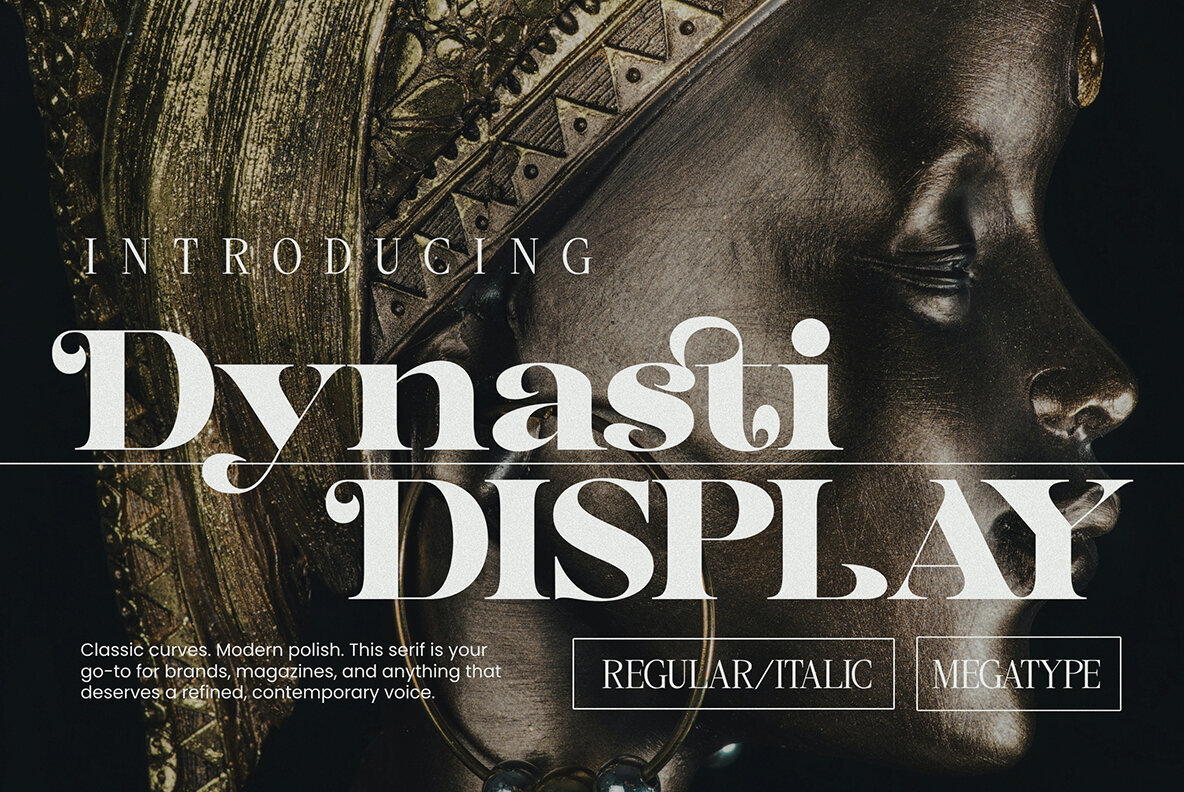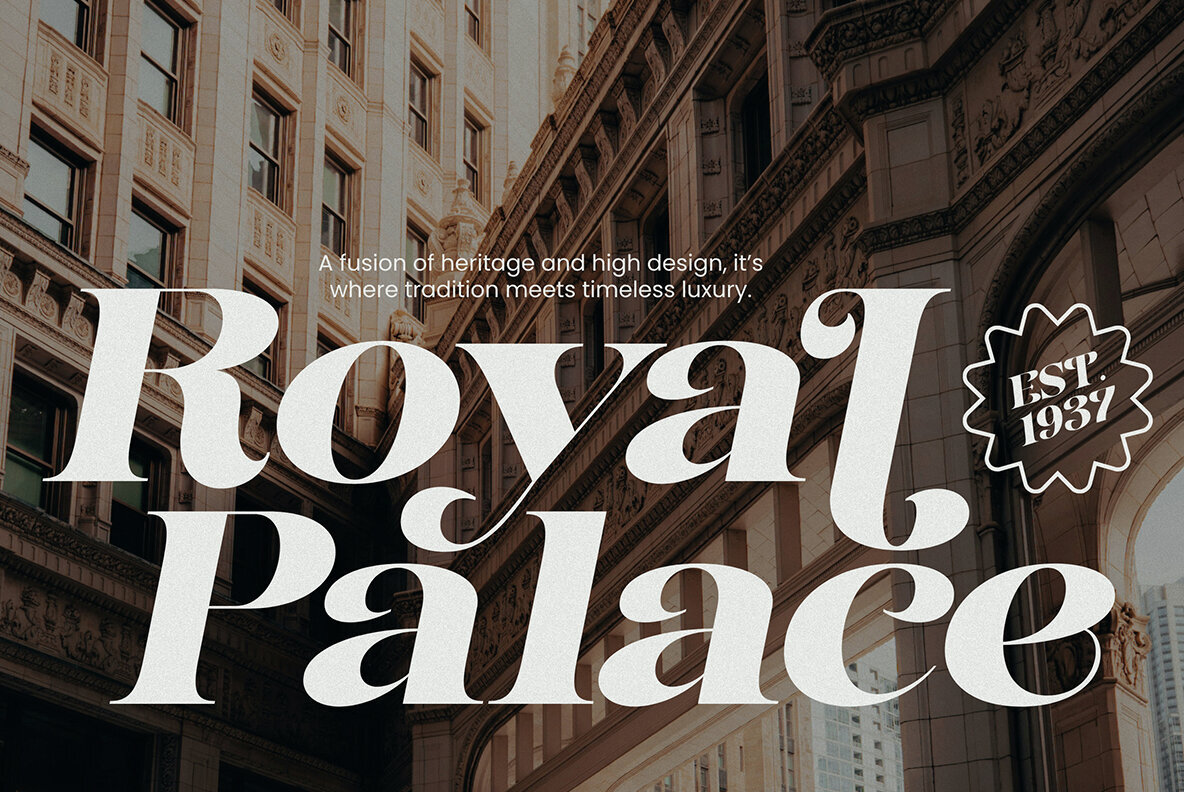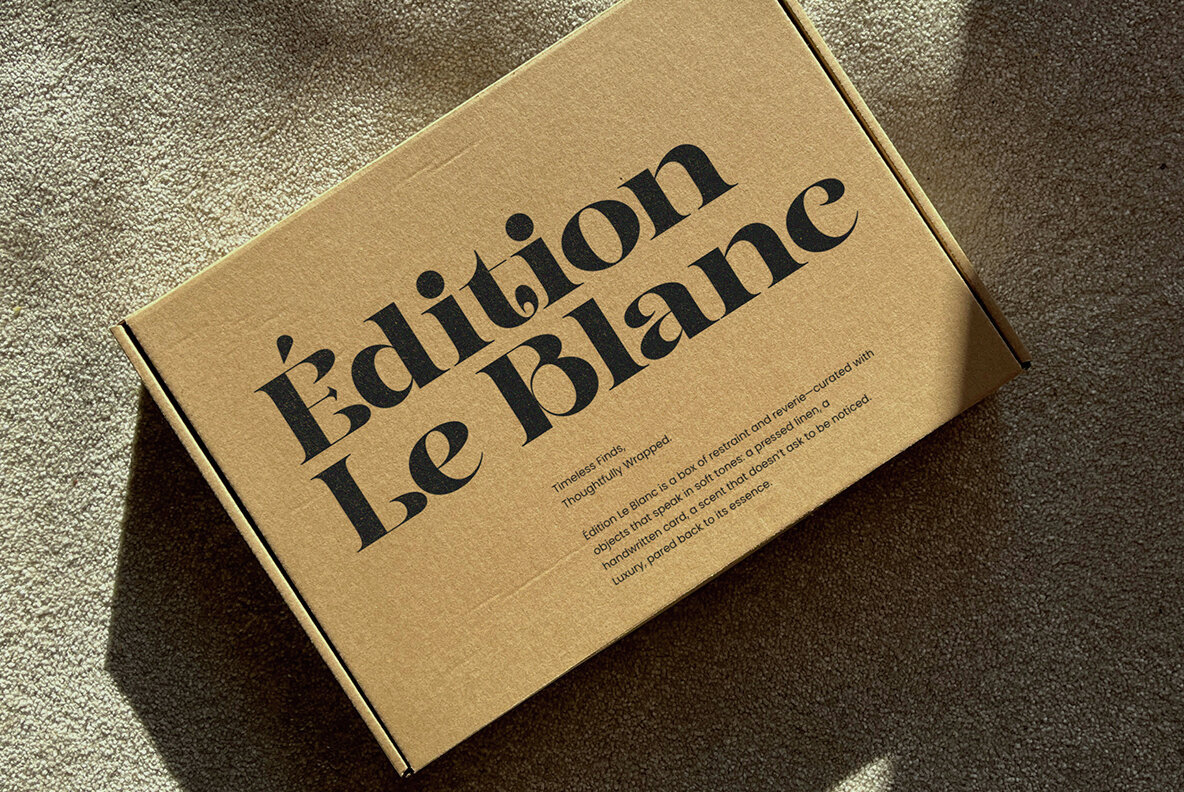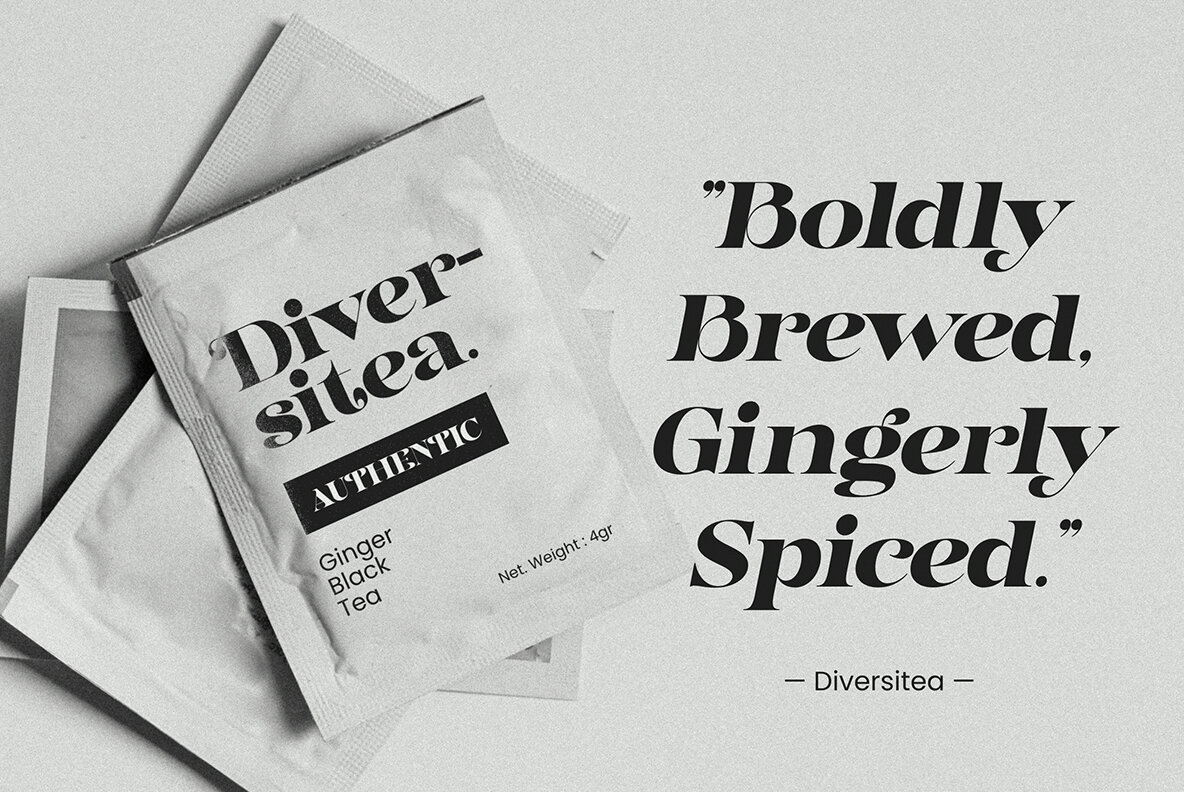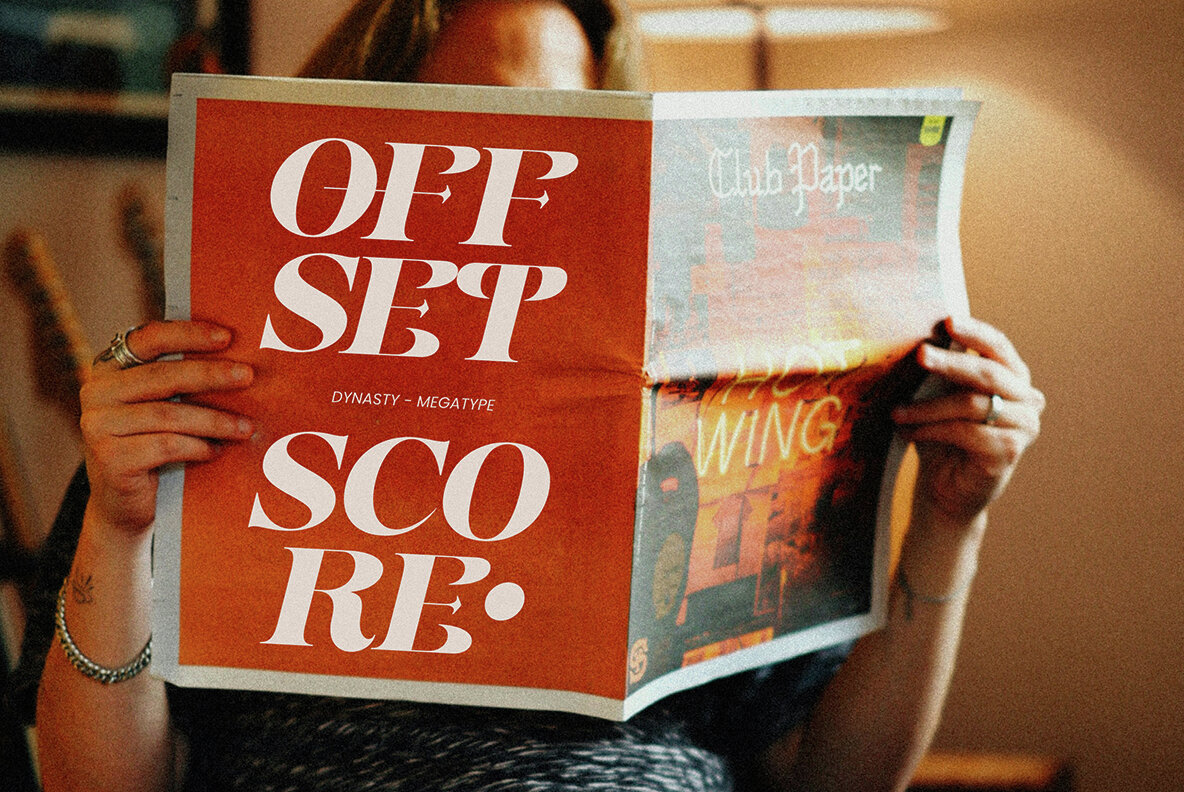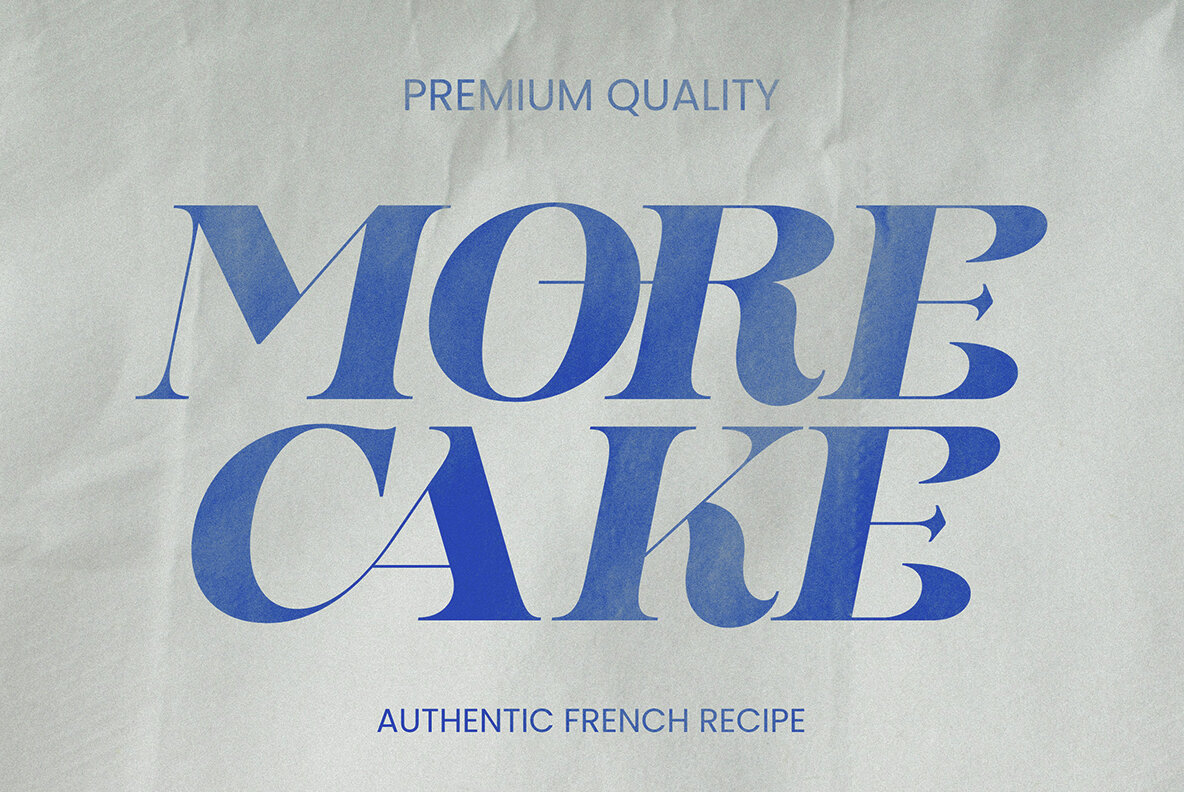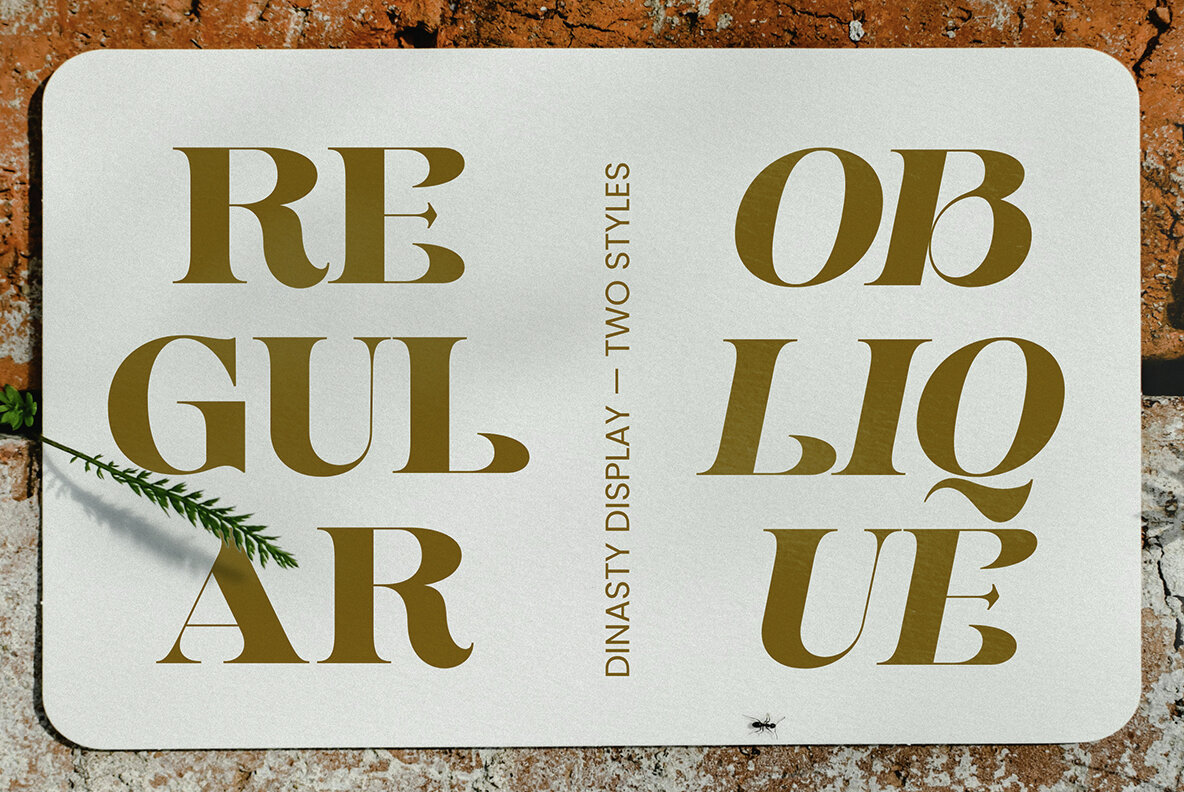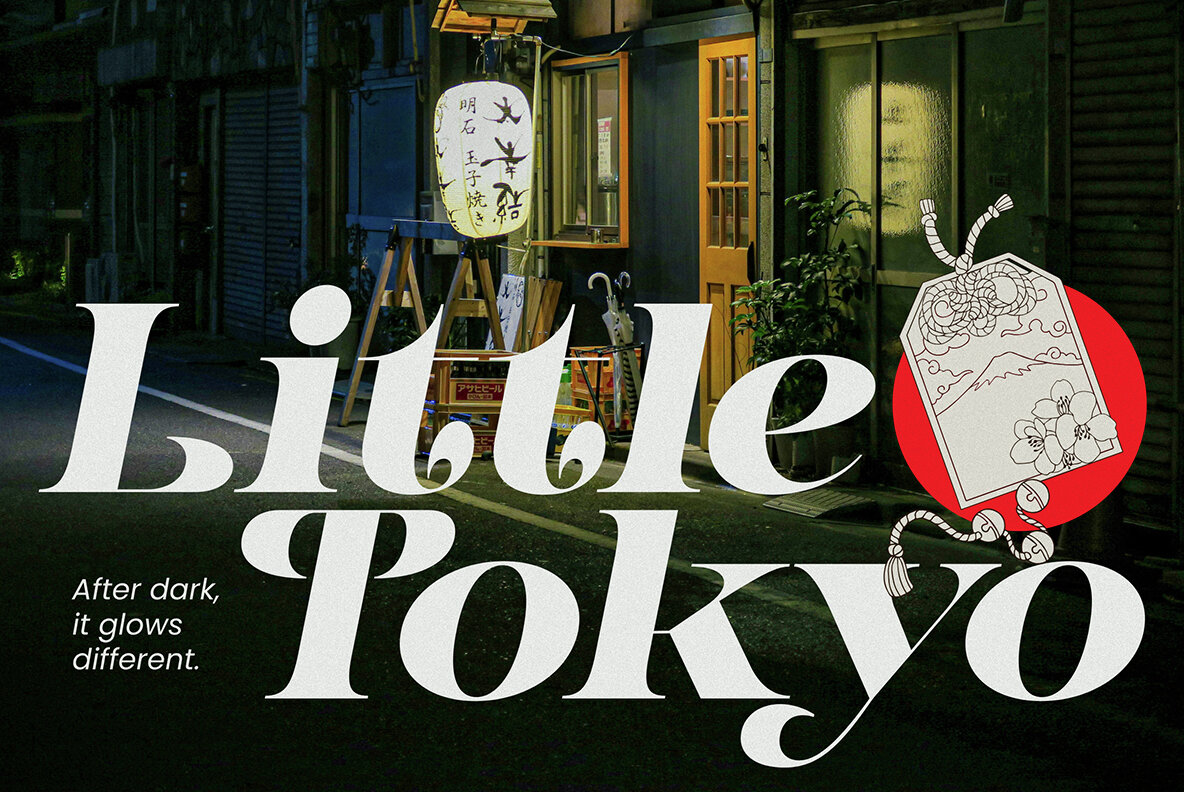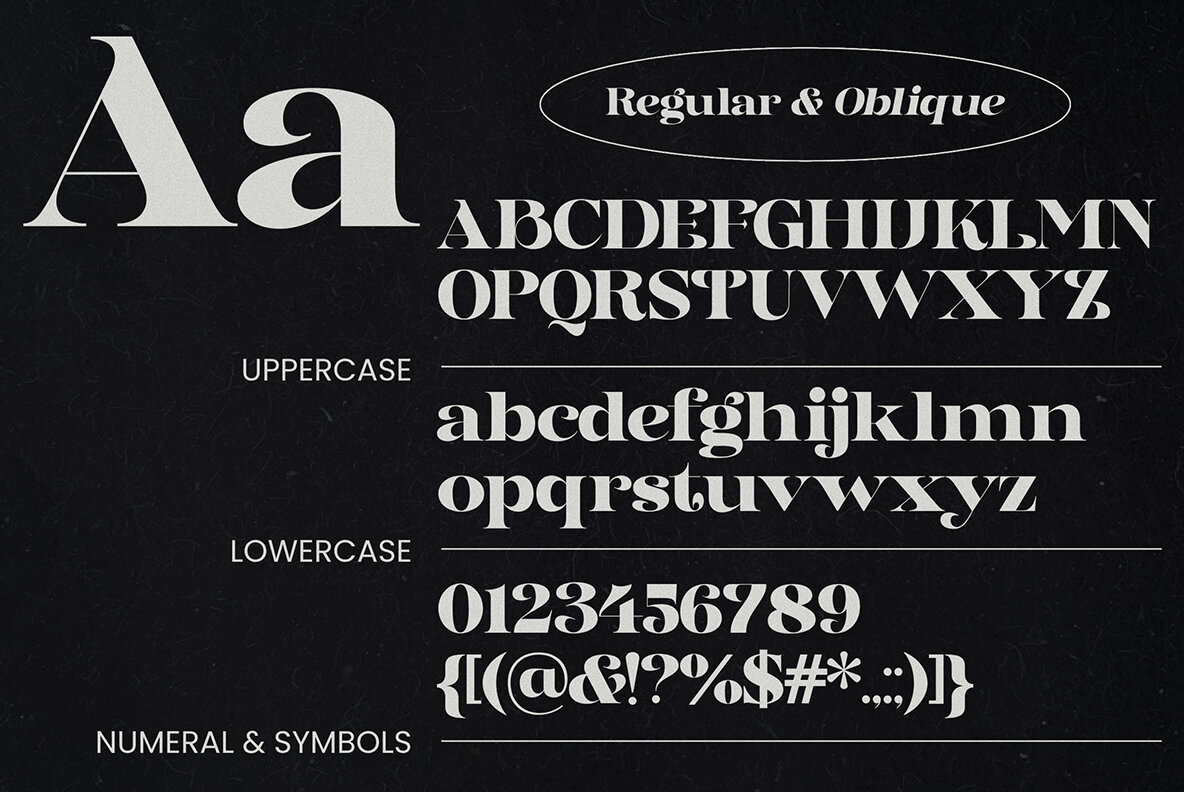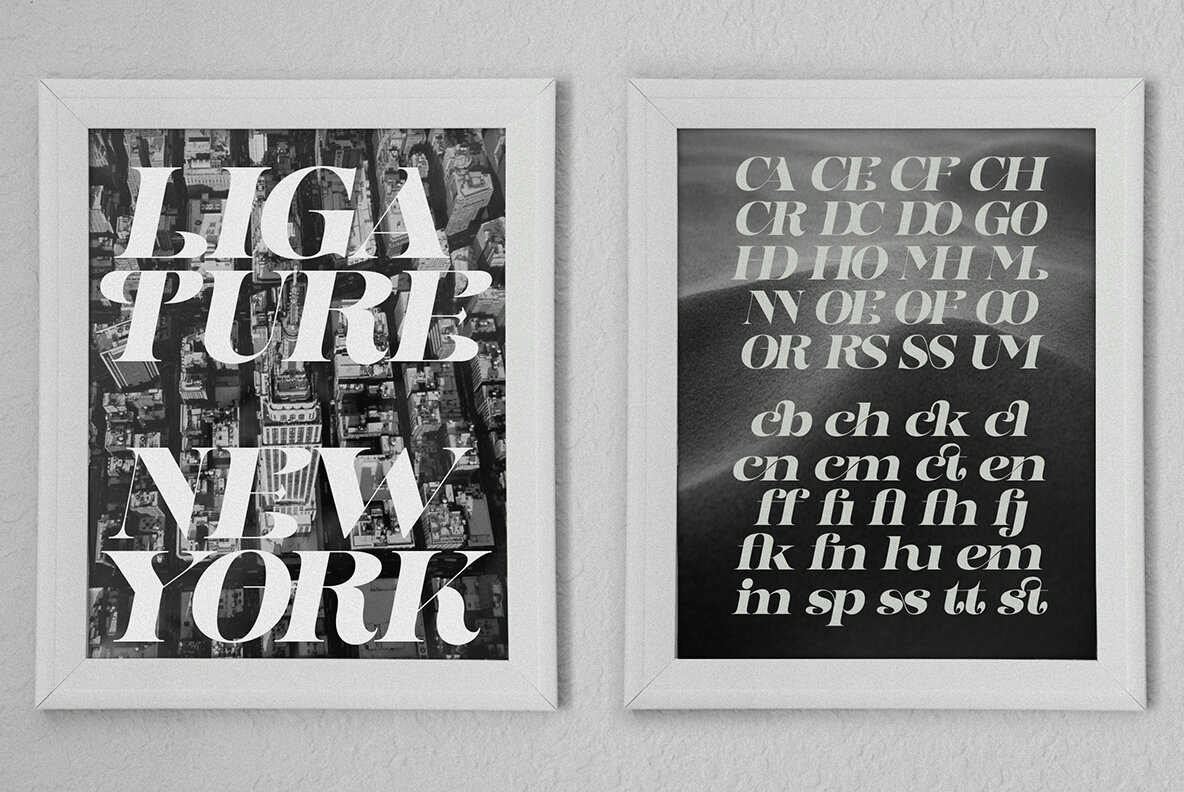
Dynasti Font
Introducing the Dynasti Display, a bold and decorative serif typeface renowned for its stunning contrast between thick and thin strokes and its intricate calligraphic elements. The uppercase letters exude elegance, with exaggerated terminals and unique serif designs offering a dramatic flair. Lowercase letters maintain high contrast and feature elaborate swashes and distinctive shapes, lending an artistic touch to any design. With its italic styles boasting a pronounced slant, the Dynasti Display enhances its dynamic appearance. Ideal for creative designs, luxury branding, and sophisticated editorial layouts, this typeface makes a powerful statement wherever it is applied.Dynasti Display Decorative Serif Typeface